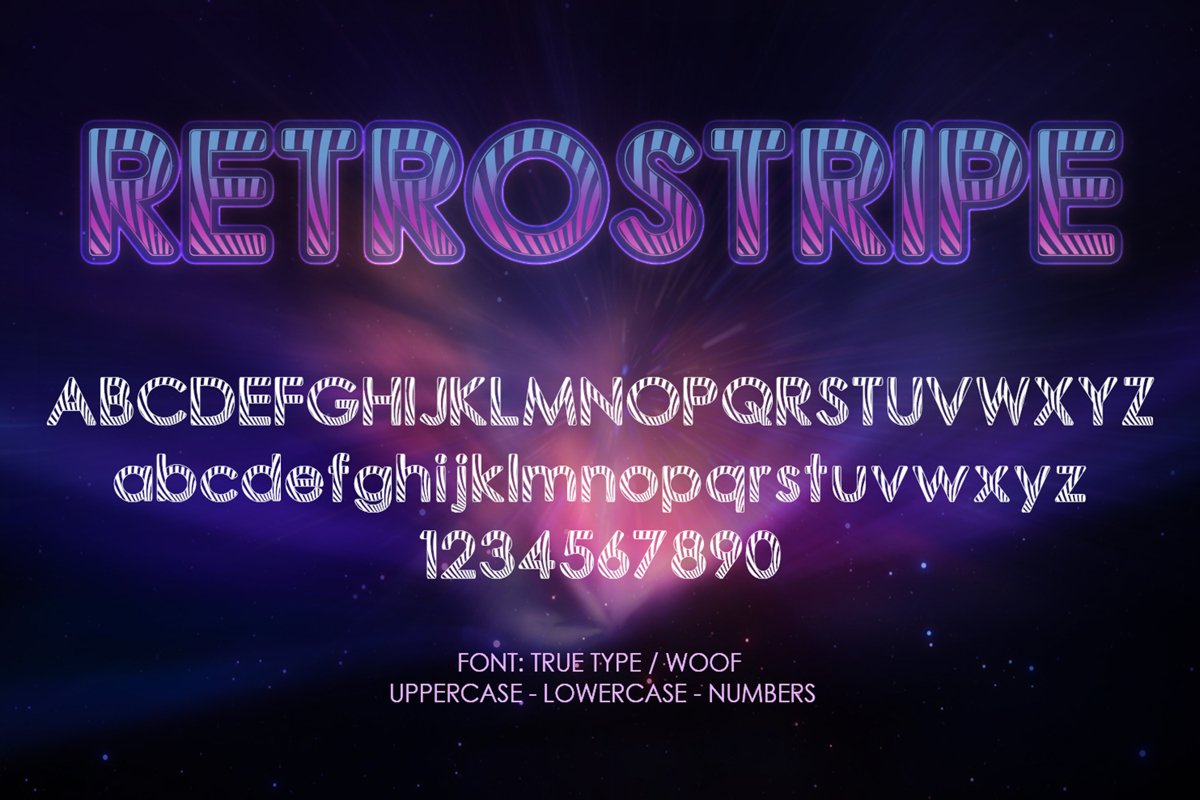
Retrostripe
Retrostripe font is a font based
on Retro alphabet letters designed with stripes
and are inspired from 60's.
Retrostripe font consists of 62 glyphs,
including Uppercase, Lowercase fonts & Numbers